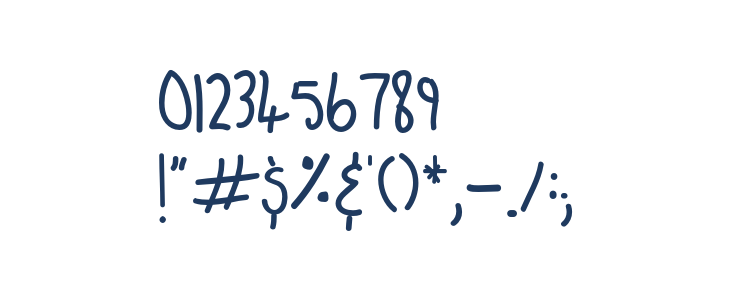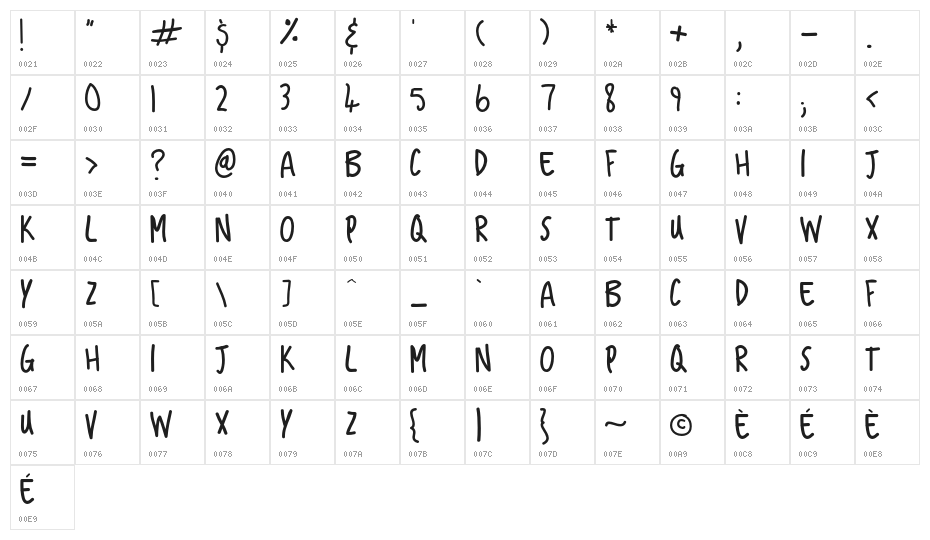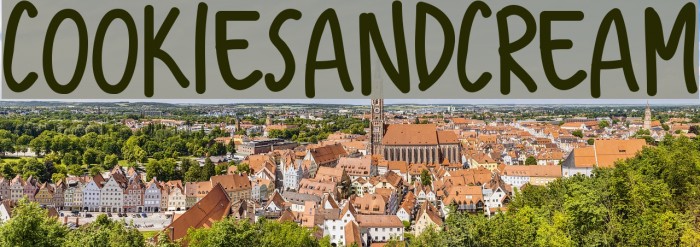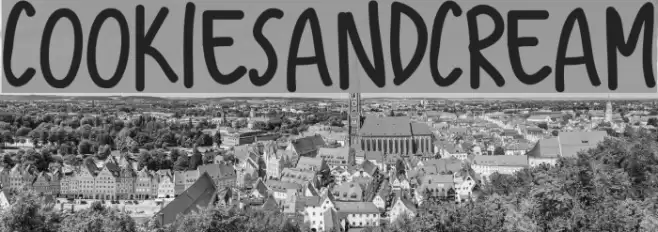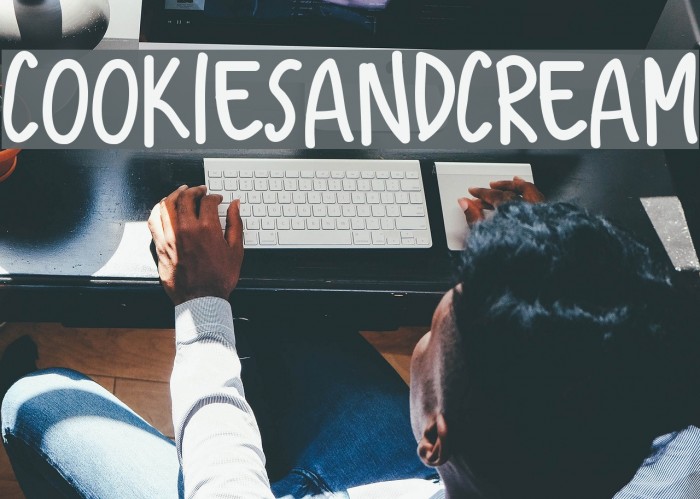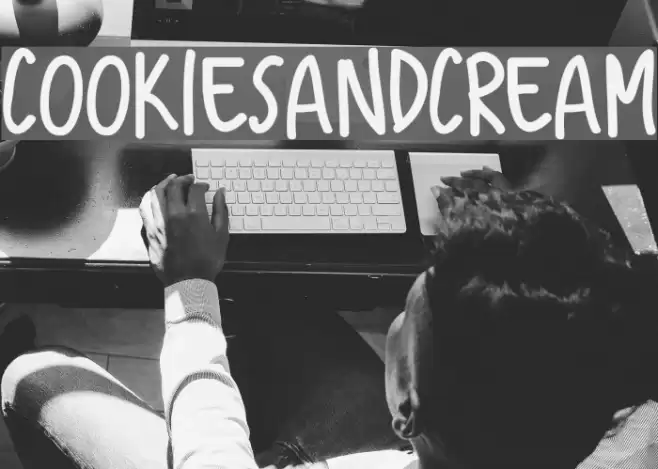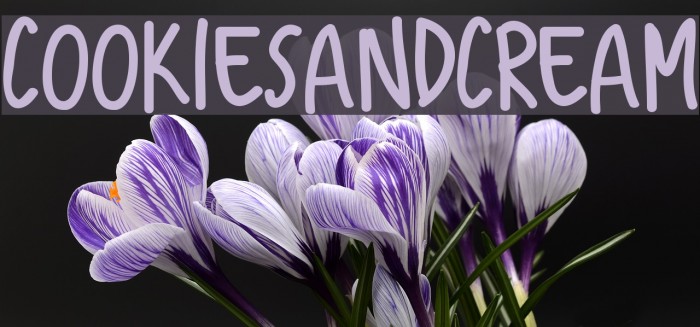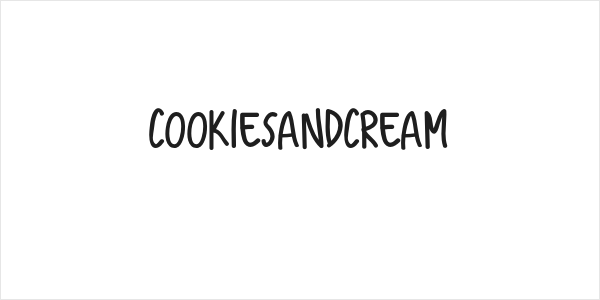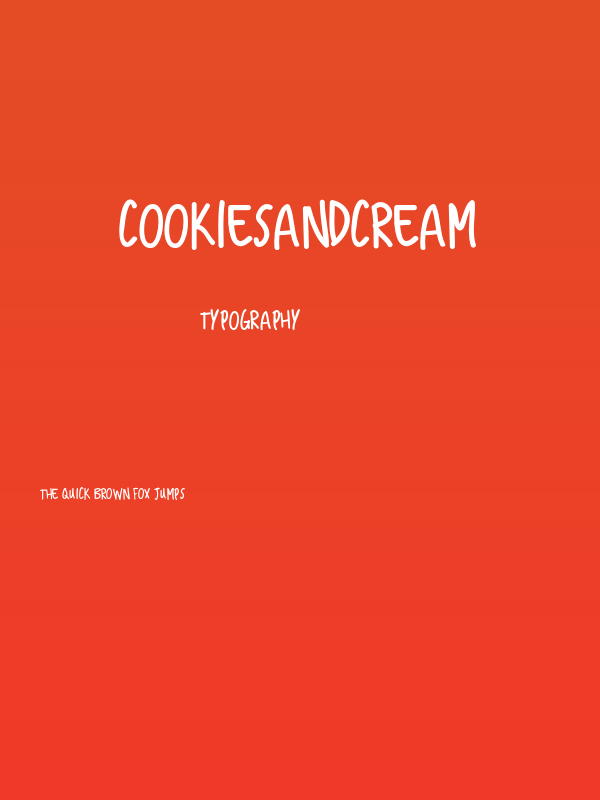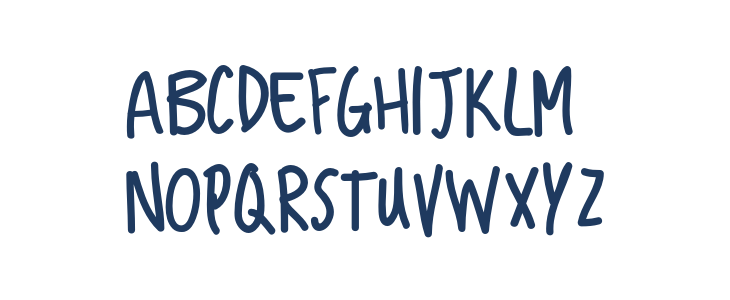
Cookiesandcream Font
Cookiesandcream Description
This playful and informal font features a handwritten style with a casual, friendly appearance. The letters are slightly uneven, adding to its charm and authenticity. The strokes are smooth and rounded, giving it a soft and approachable feel. It maintains a consistent weight throughout, with moderate spacing between characters that ensures readability. The font includes both uppercase and lowercase letters, numerals, and a variety of special characters, making it versatile for different uses. Its whimsical nature makes it ideal for projects that require a personal touch or a fun, lighthearted vibe.